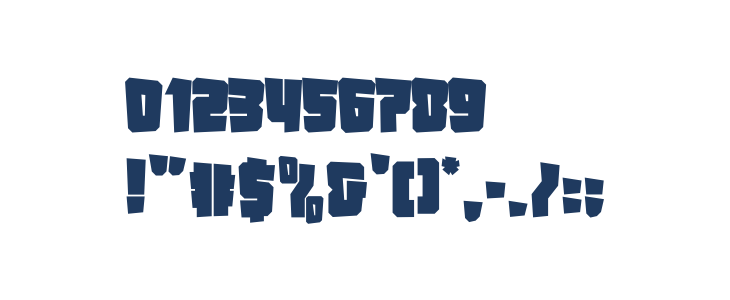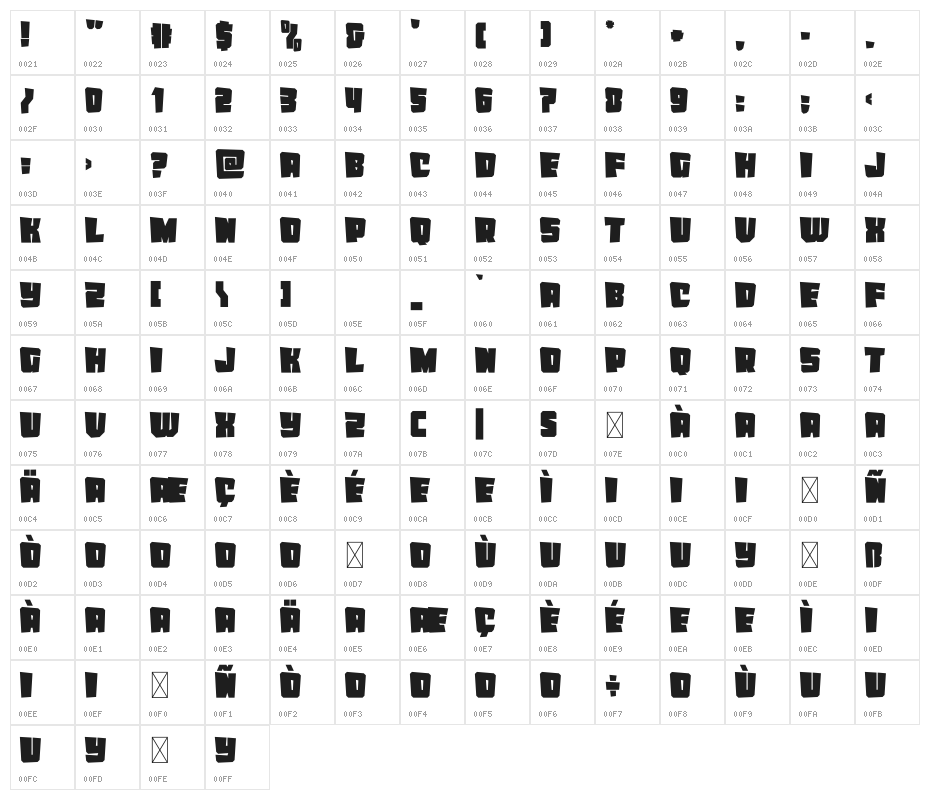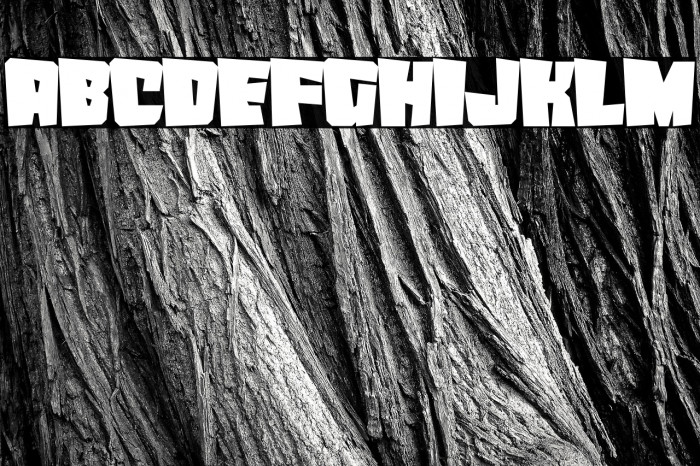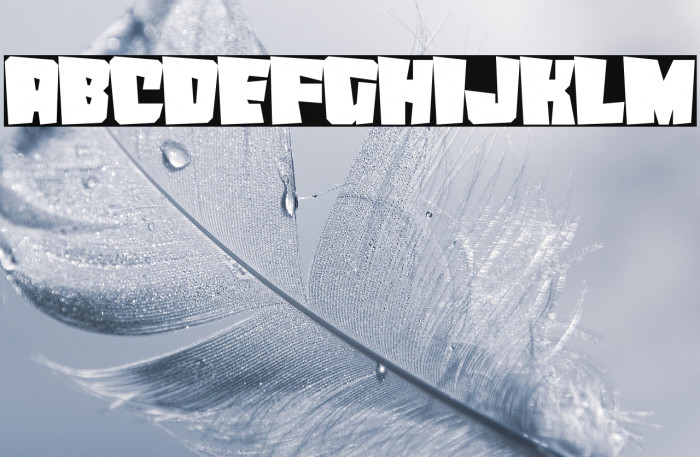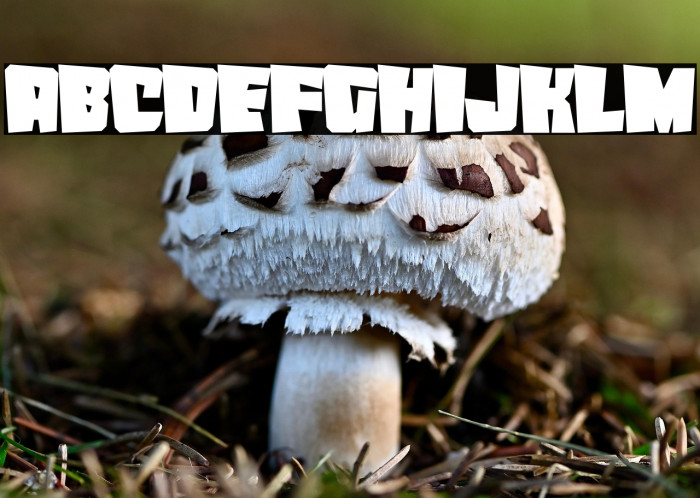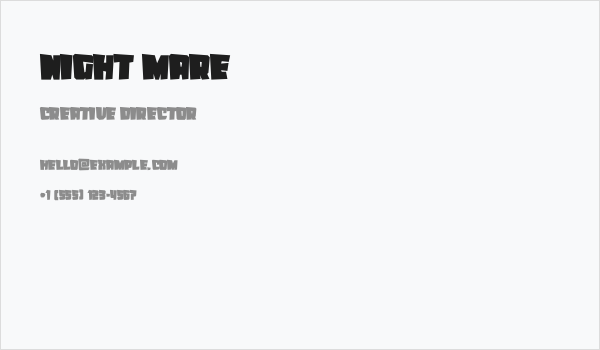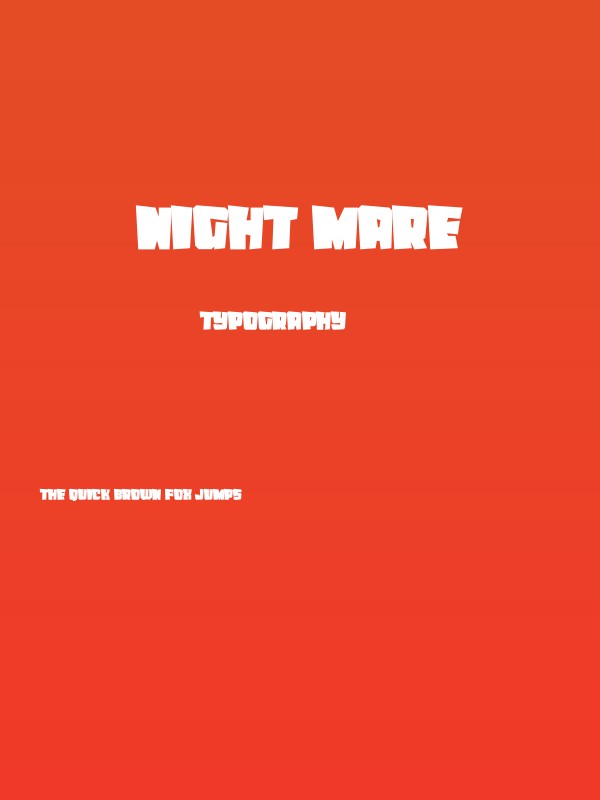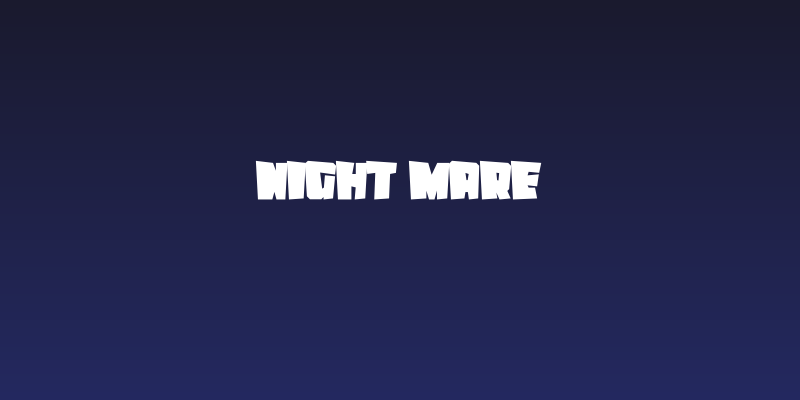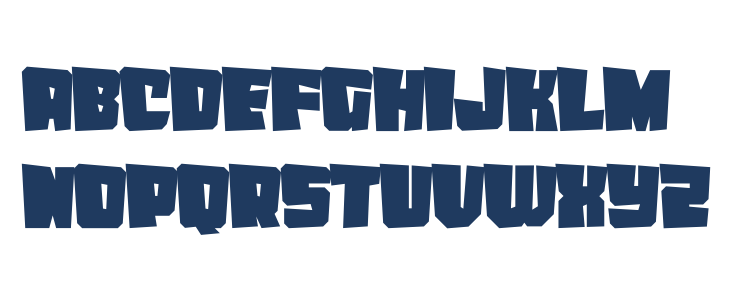
Night Mare Font
Night Mare Description
This font features a bold and dynamic style with a strong presence. The characters are heavily stylized with sharp angles and a blocky appearance, giving it a distinctive and edgy look. The uppercase and lowercase letters maintain a consistent weight, creating a cohesive visual impact. The numbers and special characters follow the same bold design, ensuring uniformity across all text elements. This font's unique style makes it ideal for projects that require a strong and memorable visual statement.